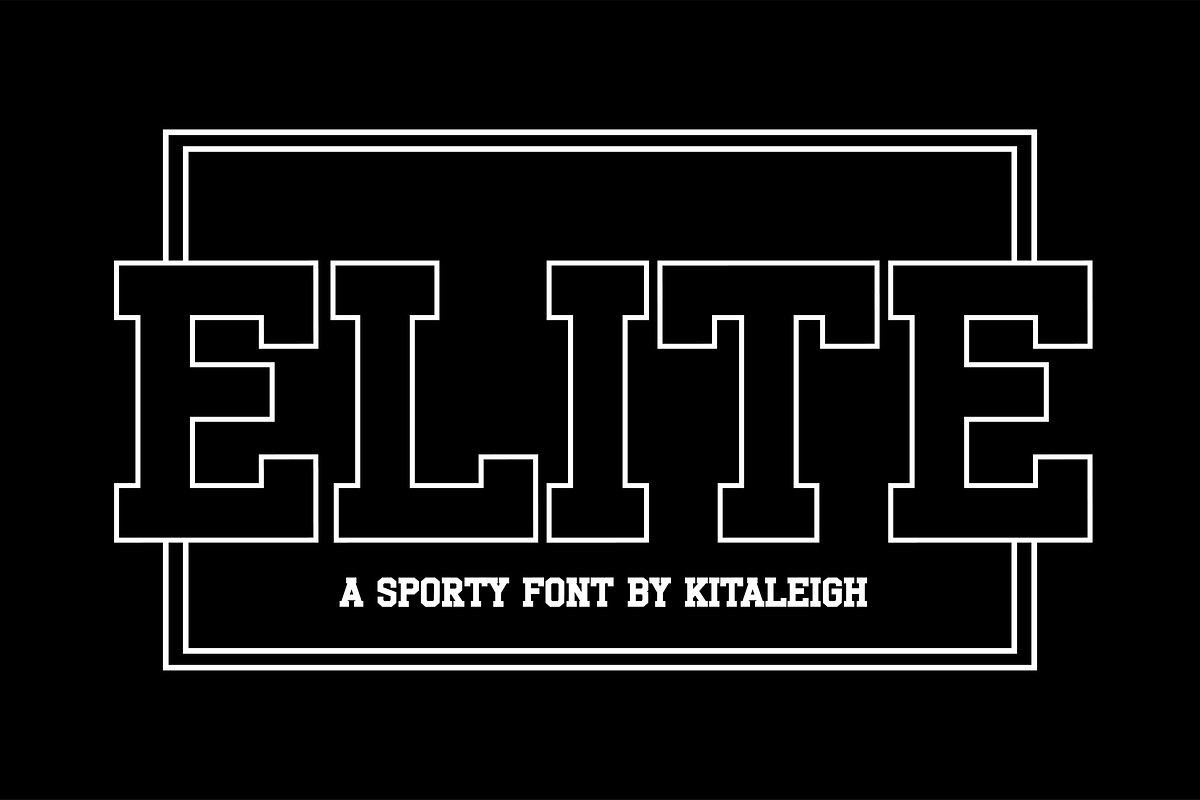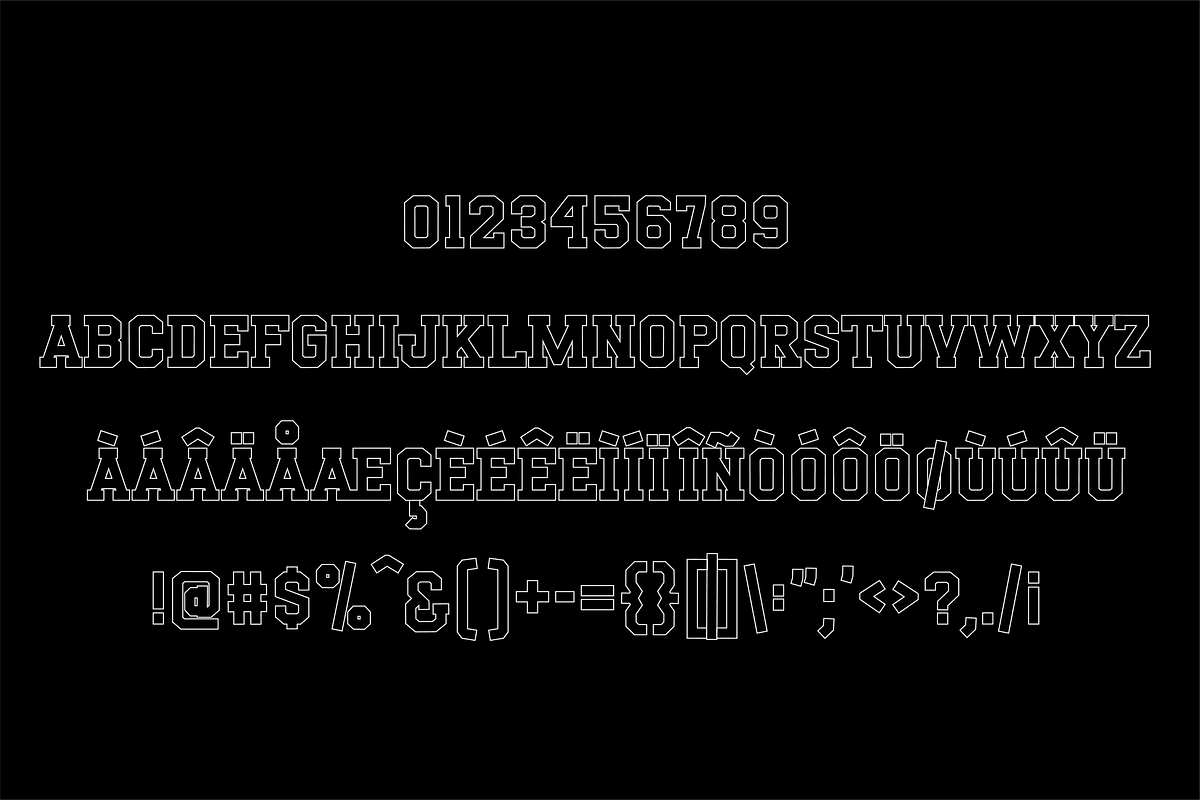
Elite
The Elite Sport Font is perfect for athletic events and teams. It features a thin outline giving it a classic, serif look. It's perfect for making a statement with any logo or sign.